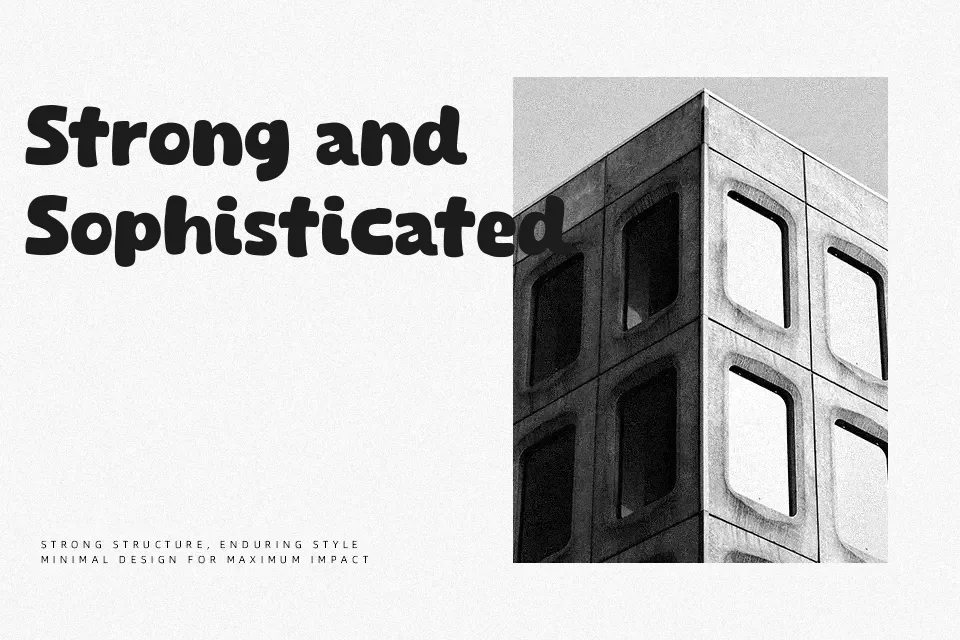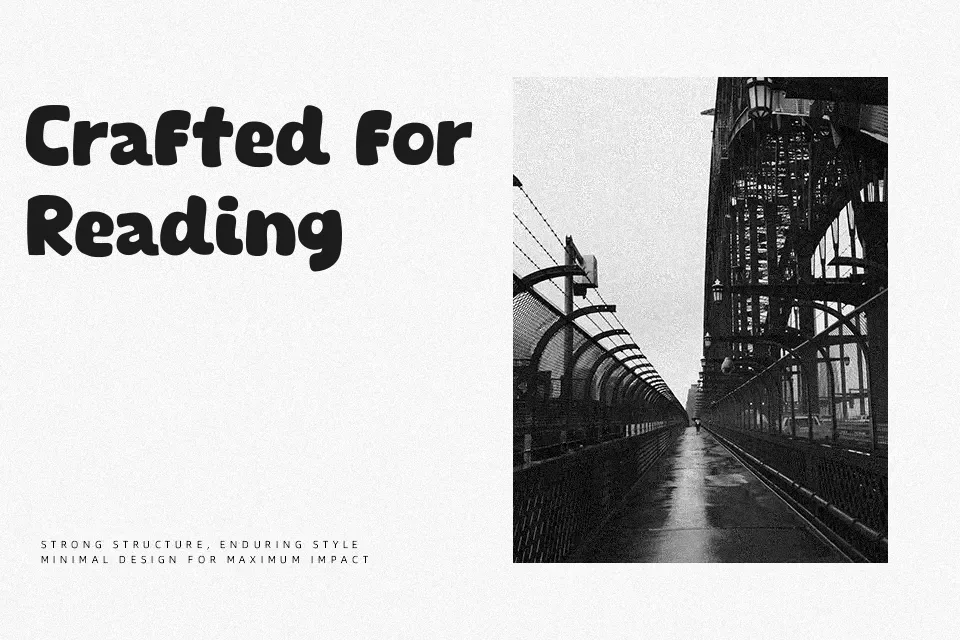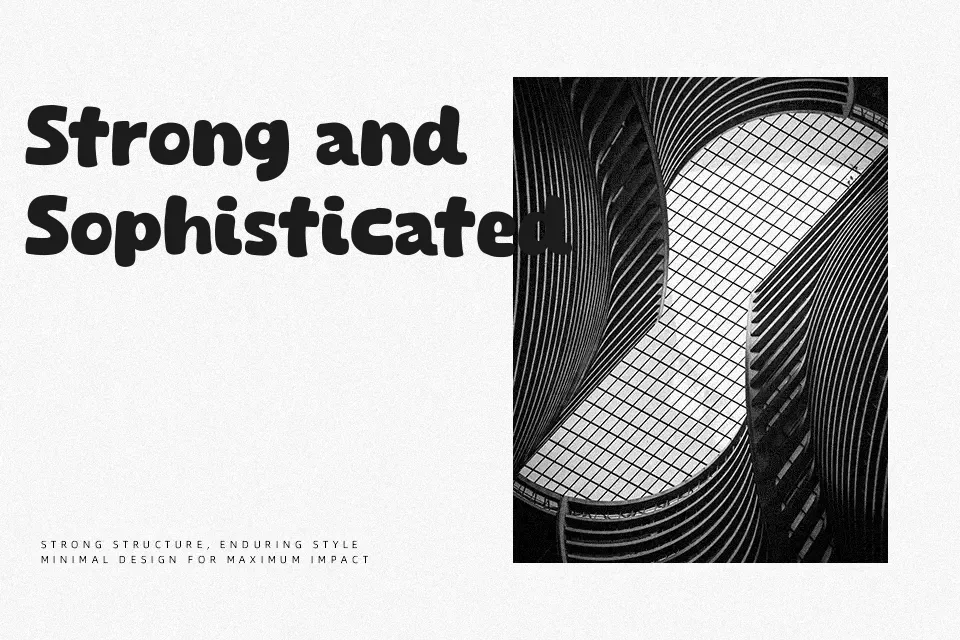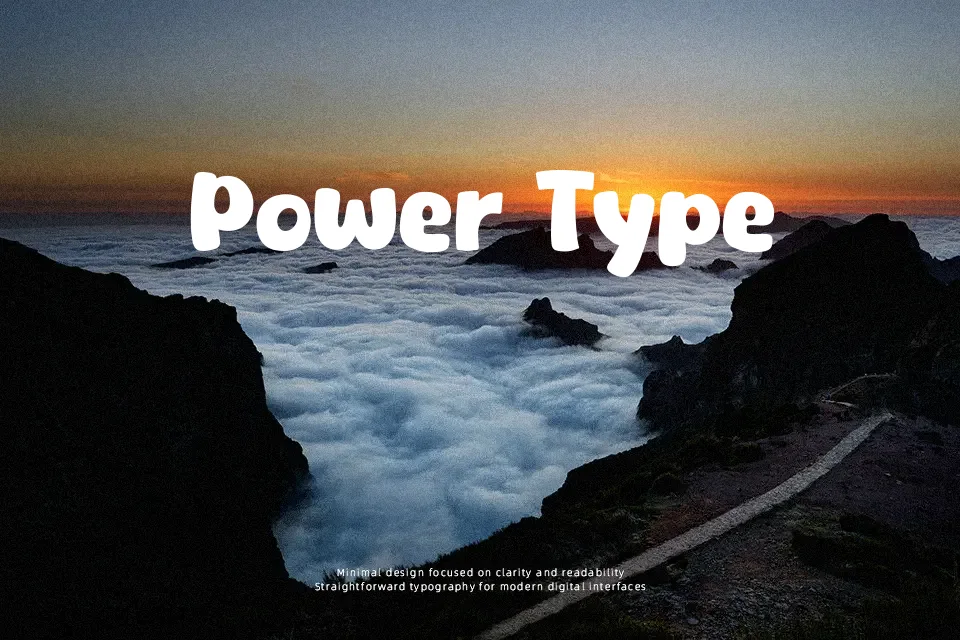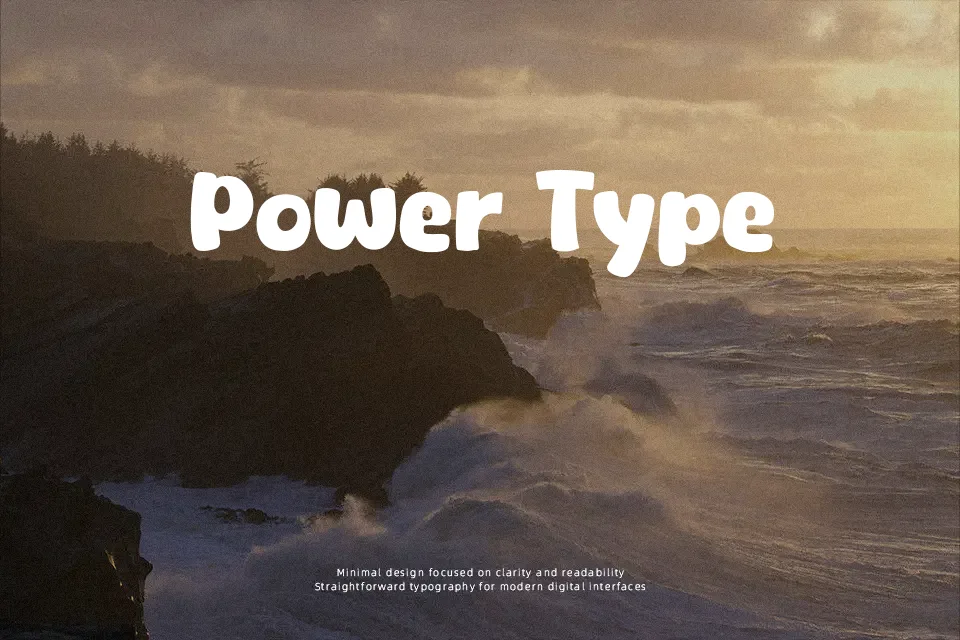
The Fruit Star Font
The Fruit Star features extra-bold display proportions constructed with swollen, rounded strokes and minimal internal counter spaces. Consistent curvature across both uppercase and lowercase glyphs establishes an animated rhythm, while closely kerned character spacing keeps headlines compact and impactful. Because the heavier stems dominate the letterforms, the design retains clear distinction in oversized headings, promotional banners, and juvenile product labels. Extended paragraph text remains impractical, however, as the dense strokes cause smaller counters to fill in quickly at reduced scales. The letterforms excel when deployed in short bursts of high-visibility titling rather than continuous body copy.
children’s book covers, animated series titles, snack packaging, toy branding
continuous paragraph text, small interface labels, dense editorial layouts, corporate reports